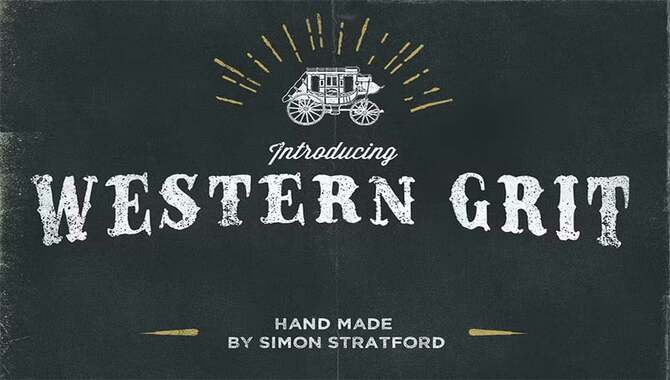
Saddle Up Your Designs With Old Western Fonts: A Comprehensive Guide
Design is vital in any project, whether a website, branding, or invitation. The visual representation sets the tone and conveys the message to the audience.
Fonts are essential to design and can make or break a project’s success. With so many font options, choosing the right one that fits your design vision can be challenging. This is where old western fonts come into play. These fonts can elevate your design and create a sense of nostalgia, adventure, and grit.
But with so many Western fonts, knowing which ones to use and how to use them effectively can be overwhelming. We will dive deep into the world of fonts and provide you with the knowledge and resources needed to saddle up your designs. We will cover various topics, including the origin and history of Western fonts, the different types of Western fonts available, and tips and tricks for using these fonts effectively.
The 10 Free Old Western Fonts
Discover the unique charm of 10 free old western fonts and elevate your designs. Unleash creativity with vintage and retro vibes, circus-inspired typography, and grunge effects. Use these fonts for logos, t-shirts, and packaging. Explore the widely preferred font styles and embody the essence of the wild west in your designs.
1. Boncegro – A Unique Western Typeface
Boncegro
Boncegro is a unique Western typeface that captures the essence of the Old West. With its bold and rugged letterforms, distinct serifs, and decorative elements, this font exudes the Wild West’s charm and vintage look and feel.
Whether you’re working on a logo design, signage, or a poster for a Western-themed event, Boncegro is a great choice. It’s available as a free download, making it accessible for various design projects. Elevate your designs with this versatile old western font and add a touch of authenticity to your work.
Bring a rustic and nostalgic touch to your designs with free Western fonts. Inspired by vintage typewriters, wanted posters, and old signage, these fonts capture the essence of the Wild West. Save money and achieve the desired vintage look with our curated collection of 10 free Western fonts available for download.
Each font has its unique style and characteristics, making it a great choice for logos, posters, signage, packaging, and more. Don’t miss this limited-time offer to enhance your designs with authentic Western typography.
3. Klipan Black – Bold And Stylish Western Font
Klipan Black
Klipan Black is a bold and stylish Western font that captures the essence of the Old West. With its strong, thick lines and decorative elements, this font is perfect for creating eye-catching designs that evoke a sense of nostalgia and adventure.
Whether you’re designing a poster, logo, or branding materials for a Western-themed event or business, Klipan Black will make a statement. Its unique and distinct style will help your designs stand out from the crowd and bring a touch of the wild west to any project. So saddle up and give your designs that authentic old-western feel with Klipan Black – the ultimate font for all your wild west needs.
4. Bonaparte – Classic And Elegant Western Font
Bonaparte
Capture the essence of the Wild West with Bonaparte, a classic and elegant font. Its bold lines and decorative serifs lend an authentic touch to your designs. Whether it’s a poster, logo, or invitation, Bonaparte is the perfect choice. Download this vintage font for free and add a touch of retro charm to your Western-themed projects.
5. Cactus – Playful Western Font For Inviting Designs
Capture the playful spirit of the Wild West with Cactus, a charming and cheerful font. Its bold and rounded letters, decorative serifs, and stylized details make it perfect for eye-catching headlines, signage, and invitations.
Cactus adds an authentic touch to posters, logos, and packaging, creating a captivating old Western look and feel. Use it with rustic textures or vintage illustrations for a truly inviting design.
6. Wayne – Strong And Masculine Western Font
Wayne
Wayne is a strong and masculine Western slab font that captures the rugged charm of the old West. With its bold, thick letters and rugged edges, Wayne exudes strength and masculinity, making it a great choice for vintage logo designs, typography, and poster designs.
This Western font is perfect for various projects, from t-shirt designs to packaging and signage. Its vintage, retro look and feel, hand-drawn glyphs, and ligatures add an authentic touch to your Western-inspired designs. Whether working on cowboy-themed branding or creating a vintage book cover, Wayne is a versatile font that will elevate your design project.
7. Roadstore – Adventure-Inspired Western Font
Roadstore
Roadstore, an adventure-inspired Western font, brings the spirit of the Old West to life. Its bold and rugged lettering, complemented by decorative elements like arrows and borders, evokes a sense of nostalgia. Use Roadstore for vintage-style designs, signage, or themed party invitations. This font guarantees an authentic and adventurous look and feel, perfect for personal and commercial projects.
5.Are There Any Specific Industries Or Types Of Projects That Old Western Fonts Work Particularly Well For?
Ans: Old western fonts are ideal for projects related to the Wild West, cowboy themes, and Western-style designs. They work well for businesses in industries like rodeos, western-themed restaurants, and country music events. They also add nostalgia to historical reenactments, vintage-inspired designs, and retro-themed events. Additionally, they can be used creatively in posters, invitations, and apparel designs to evoke a rugged and adventurous aesthetic.